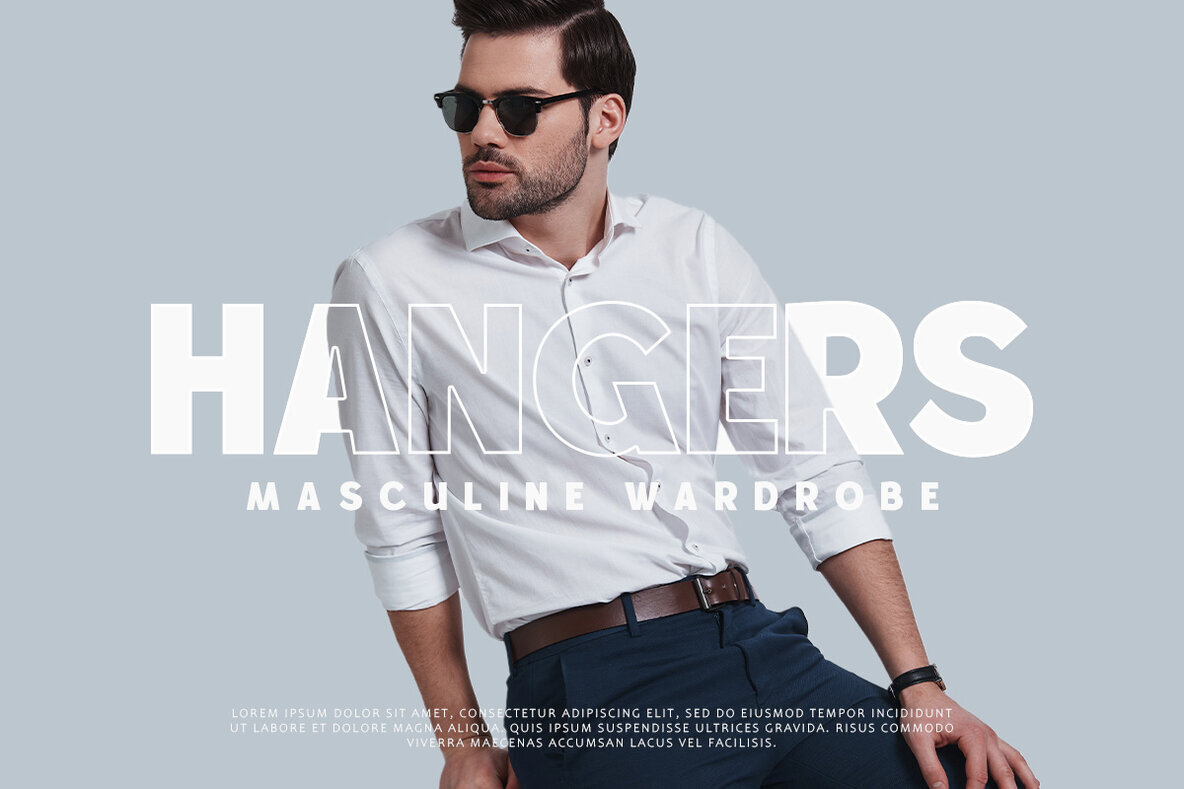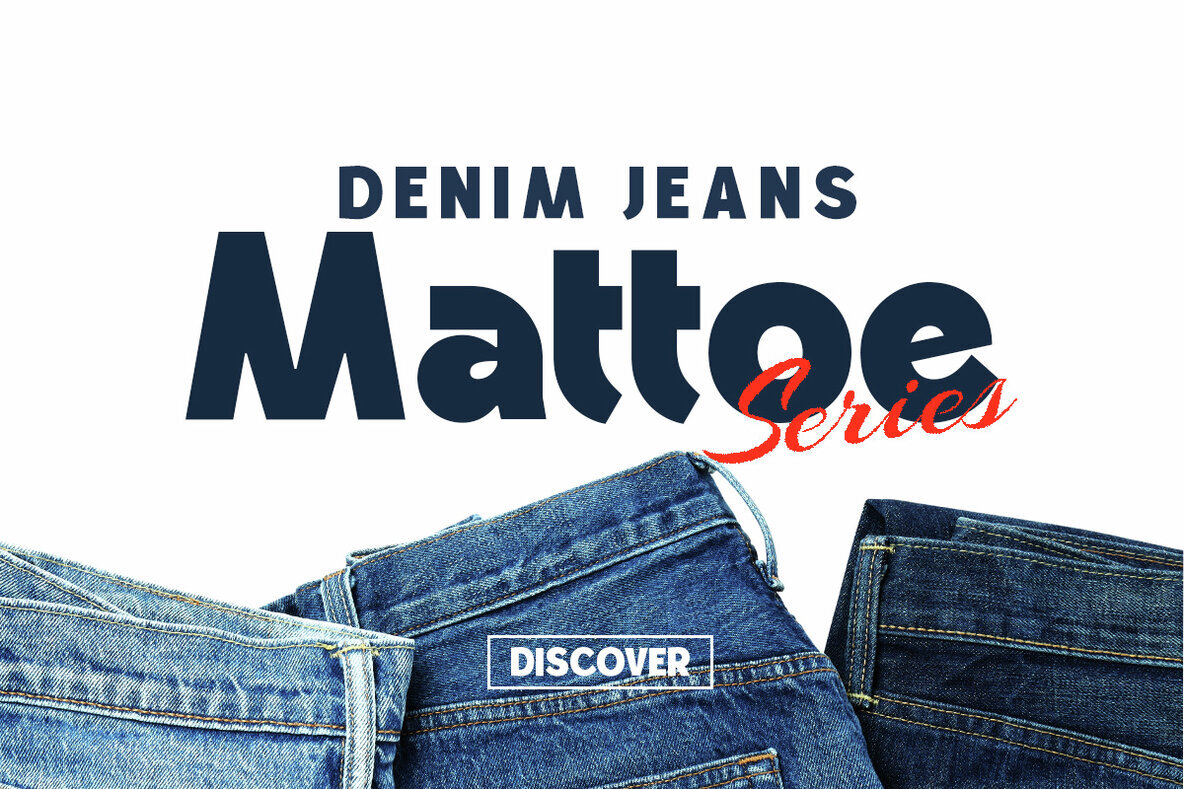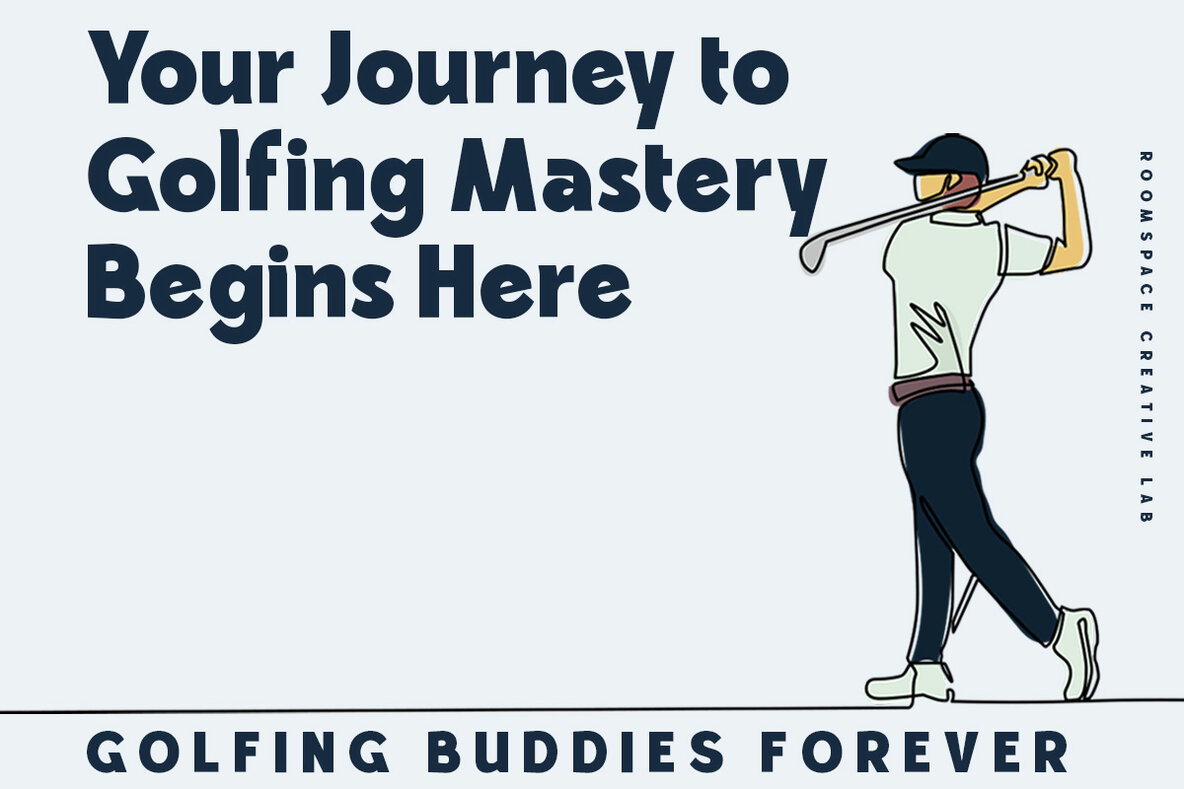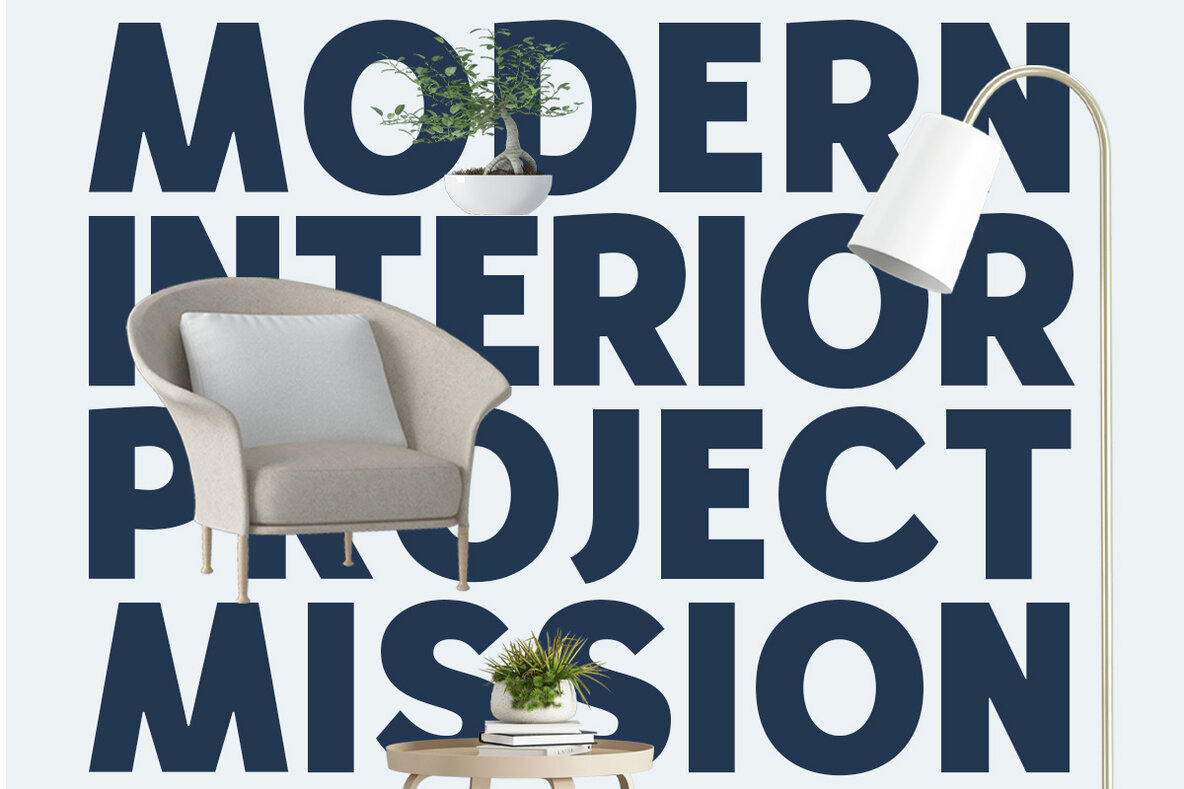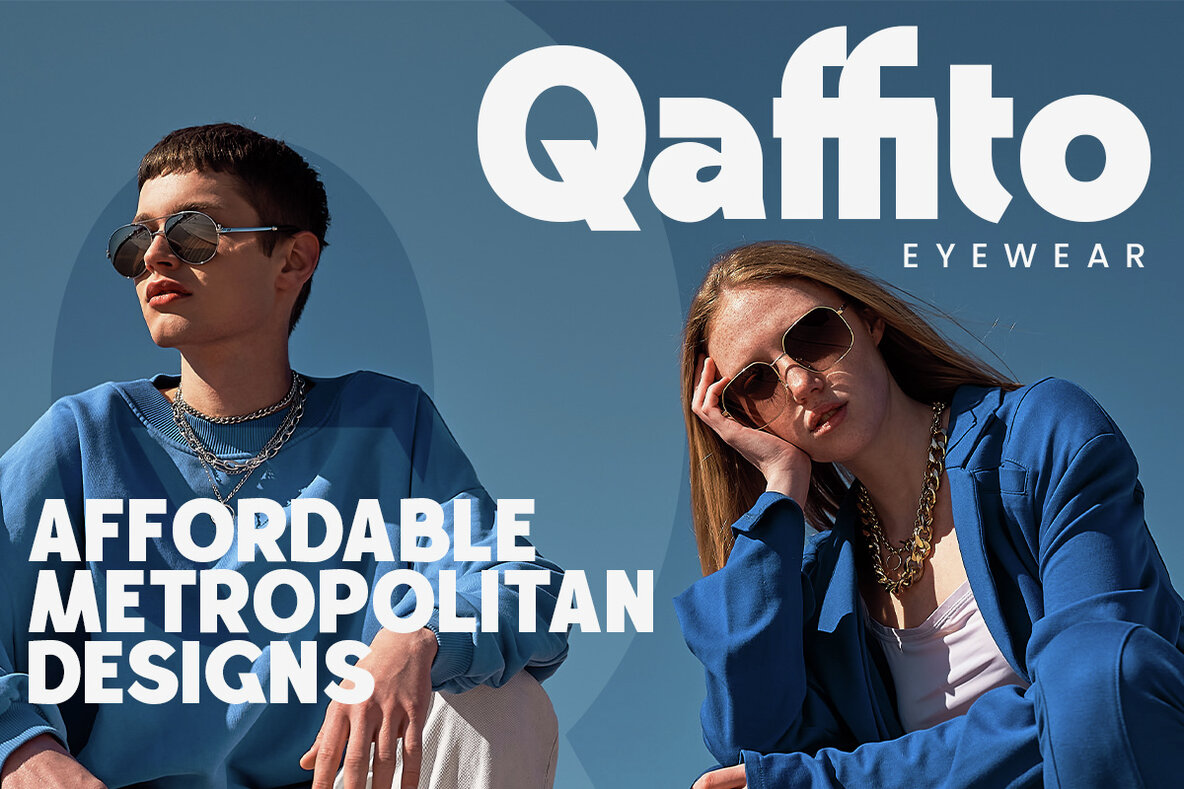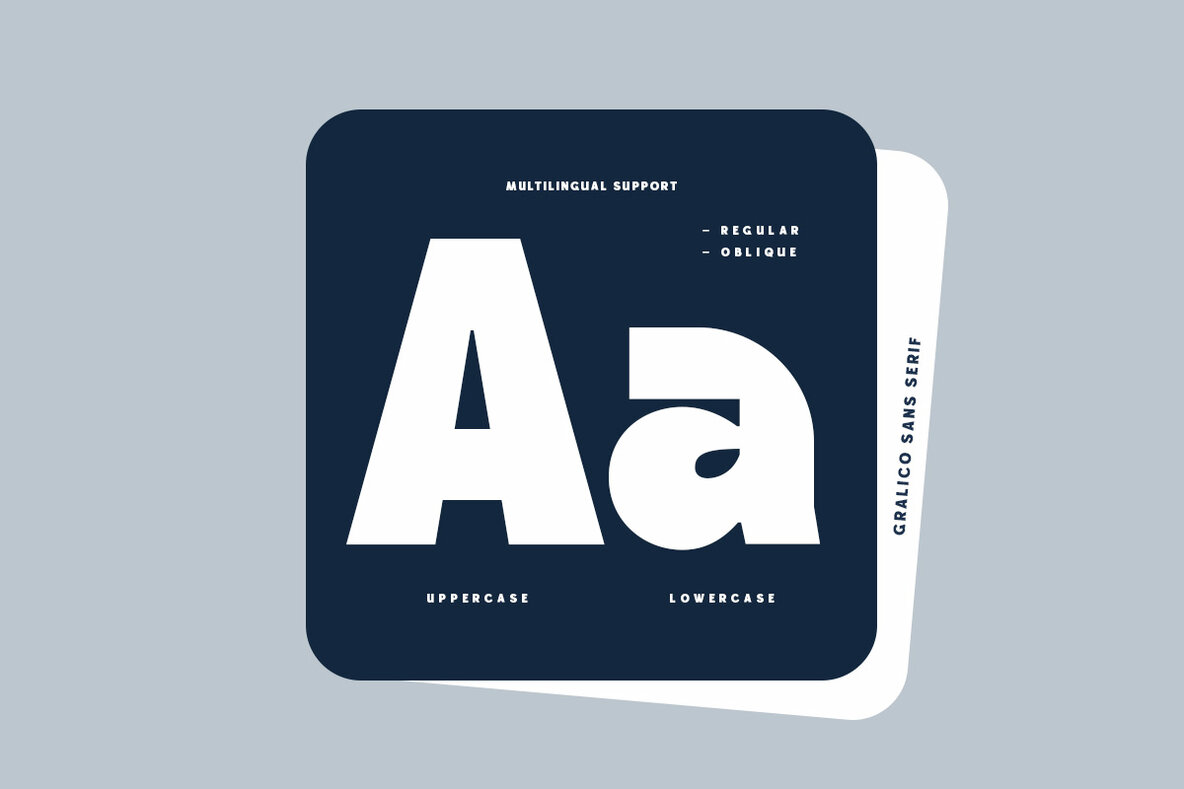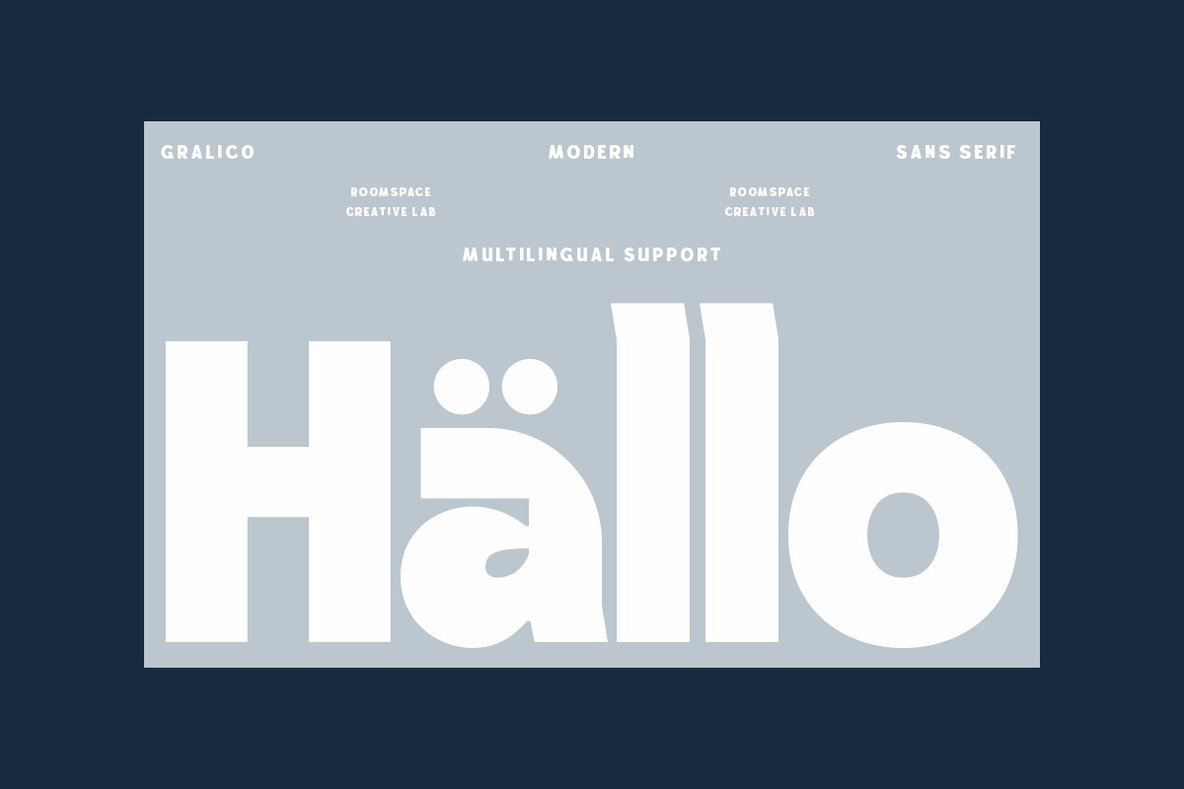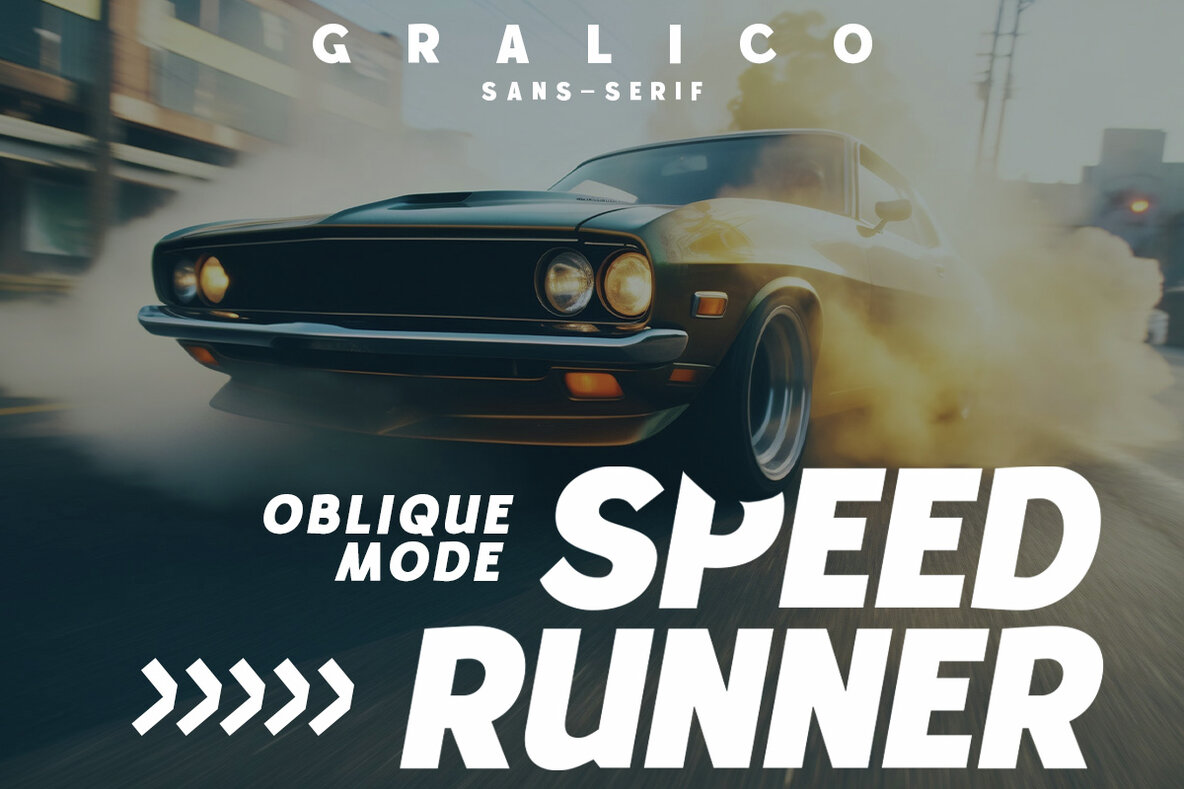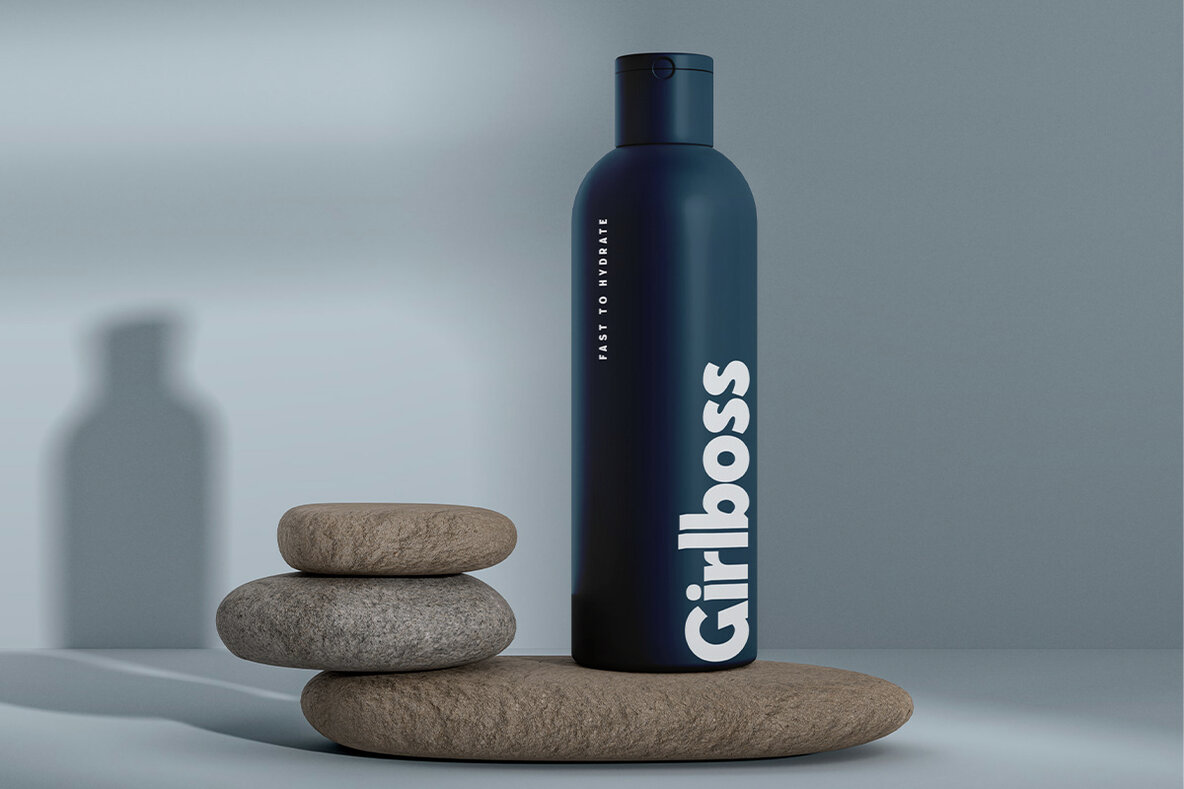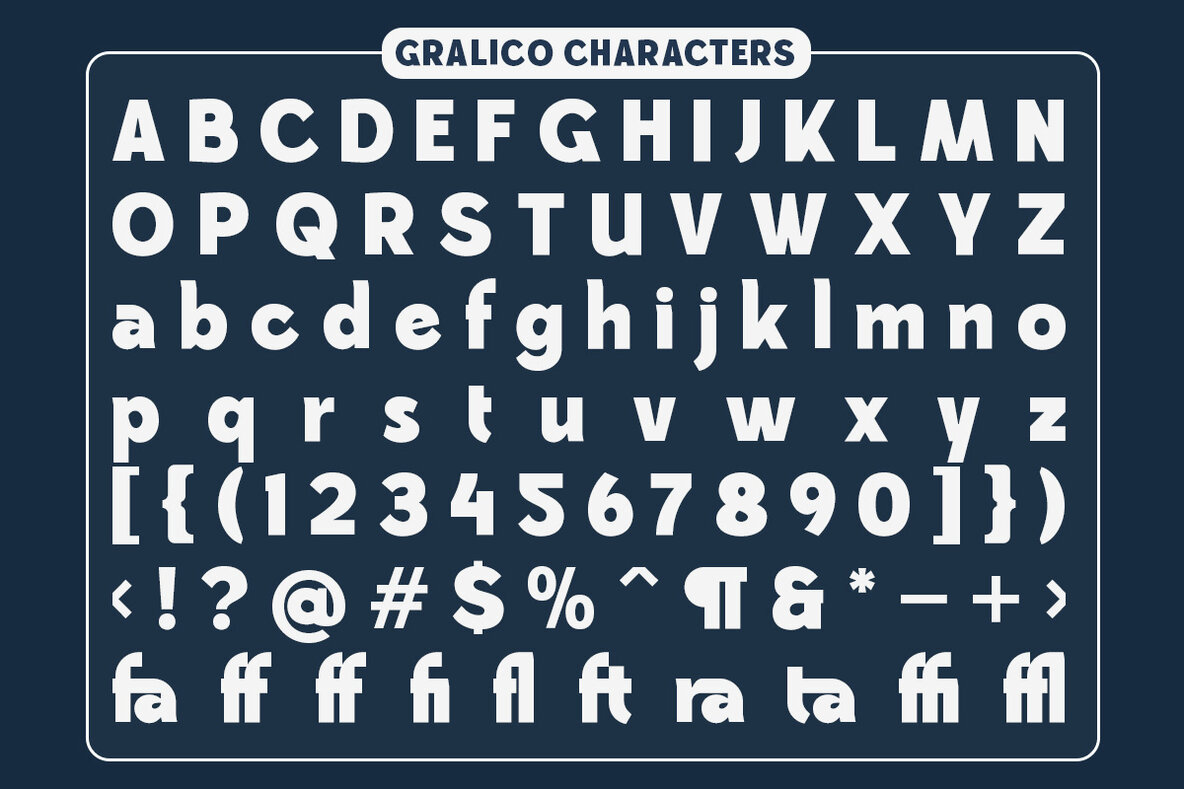
Gralico Font
Gralico embodies bold elegance and a touch of modern flair, this sans-serif typeface stands out as a beacon of creativity in the design world. Its meticulously crafted strokes and unique character set make every letter a work of art, adding depth and personality to your projects. Whether you're designing a cutting-edge website, crafting eye-catching logos, or developing stunning branding materials, Gralico offers unparalleled versatility and style. Its bold yet refined appearance commands attention, making it perfect for headlines, banners, advertisements, and more.